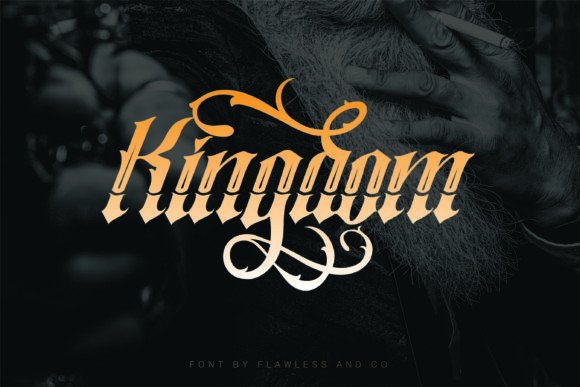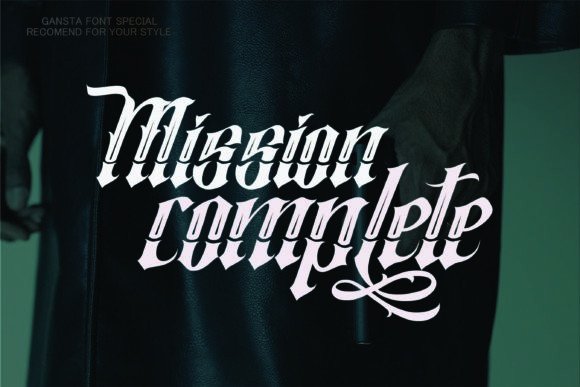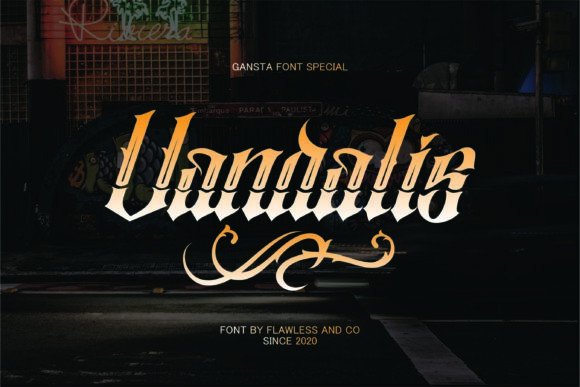
Introduction to Konstans Font
As designers, we’ve all been there – staring at a blank canvas, trying to conjure up the perfect idea for a creative project. It’s in these moments that the right font can make all the difference, elevating your design from mere mortal to masterpiece. For those seeking a bold and eye-catching look, the Konstans Font is an excellent choice. This unique Blackletter font is the perfect addition to any design, whether you’re creating a poster, branding materials, or even a simple t-shirt design.
| 📌 Product Name | Konstans Font |
| 👤 Author | Flawless And Co |
The Konstans Font is a valuable resource for designers, offering a high-quality and authentic style that’s sure to grab attention. With its transparent background and extensive character set, you can experiment with different designs and achieve a unique look. Plus, with free download options available, it’s an accessible choice for designers of all levels. Whether you’re working on a large-scale project or a small design task, the Konstans Font is an excellent addition to your design resource arsenal.
Key Features of Konstans Font
- High-quality design resource suitable for creative projects, including graphic design, digital art, and publishing.
- Transparent background, allowing for easy layering and composition in design projects.
- Designed with precision and attention to detail, ensuring a crisp and clear appearance at high resolutions (up to 300 DPI).
- Unique characteristics and styling elements, such as bold lines and geometric shapes, add a touch of sophistication to any design.
- Perfect for designers seeking a modern, high-quality font to elevate their creative project and leave a lasting impression.
Honest Review: Konstans Font
I recently stumbled upon the Konstans Font while searching for a unique design resource for a creative project. I was pleasantly surprised by the high quality and versatility of this font.
- ✨ High quality design with a modern aesthetic.
- ✨ Suitable for a wide range of creative projects, from branding and advertising to digital design and print materials.
- ⚠️ Limited font styles and weights available.
- ⚠️ Not ideal for projects requiring a large font size or complex typography.
Overall, I was impressed with the Konstans Font’s design and usability. While it may not be the most versatile font, its high quality and transparent background make it a great addition to any designer’s toolkit. With a little creativity, it can be used in a variety of creative projects, from branding and advertising to digital design and print materials.
Tips for Getting the Most Out of Konstans Font
For the best results, use the Konstans Font on a transparent background to ensure a seamless integration with your design. You can also experiment with different font sizes and styles to add visual interest to your creative project.
Common Use Cases for Konstans Font
Konstans Font is a versatile design resource that can be used for a variety of creative projects, including logos, business cards, and marketing materials. Its high quality and unique design make it an ideal choice for any project that requires a touch of elegance and sophistication.